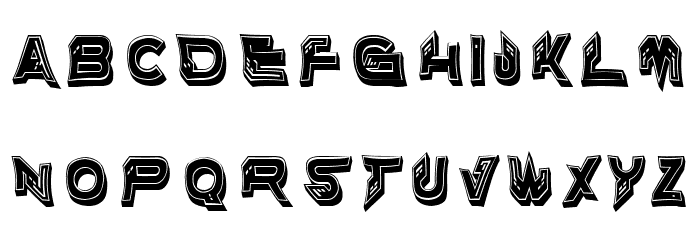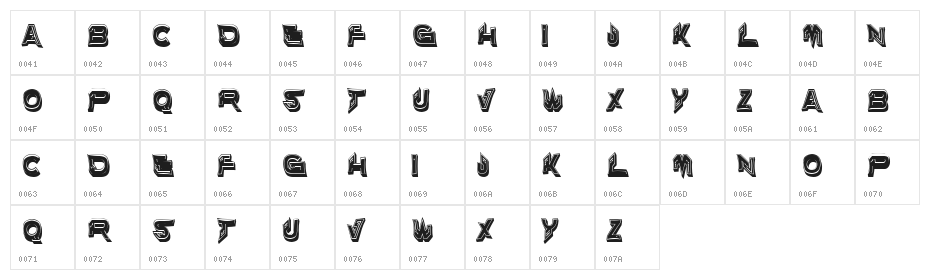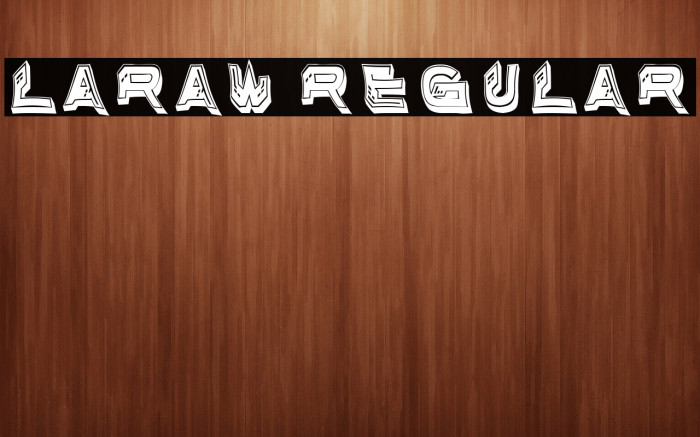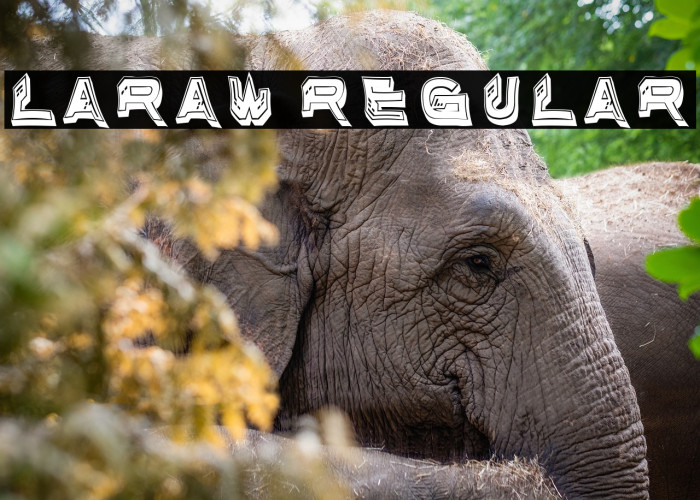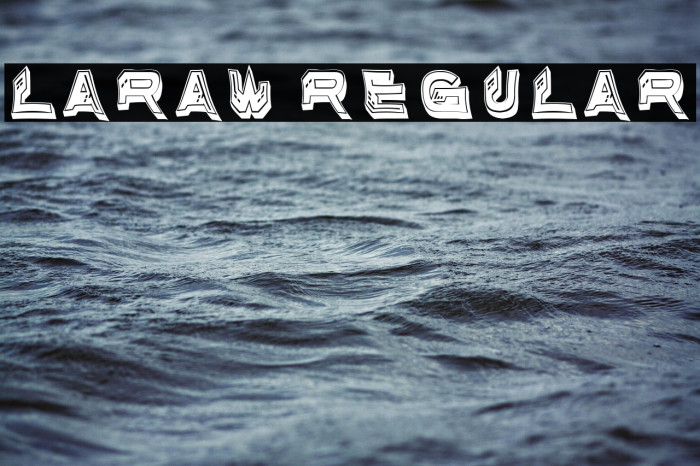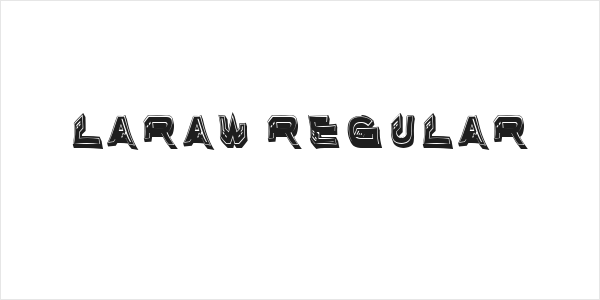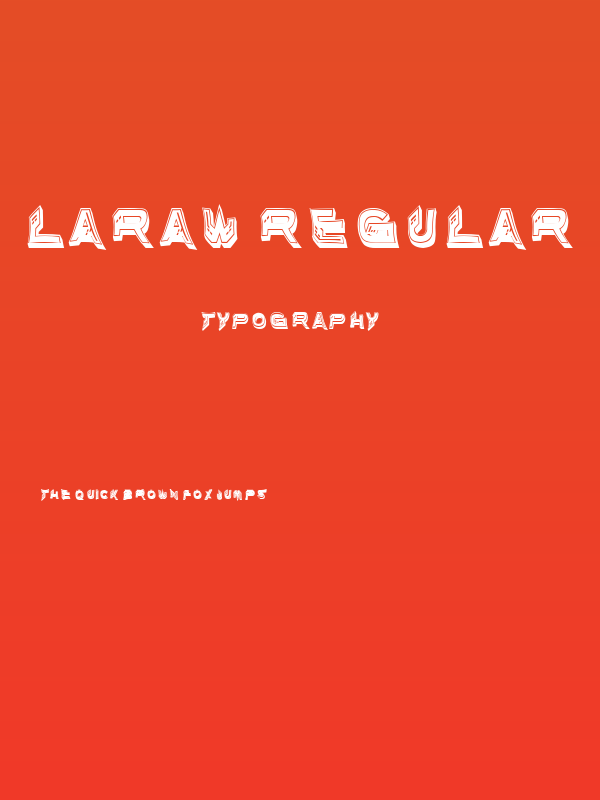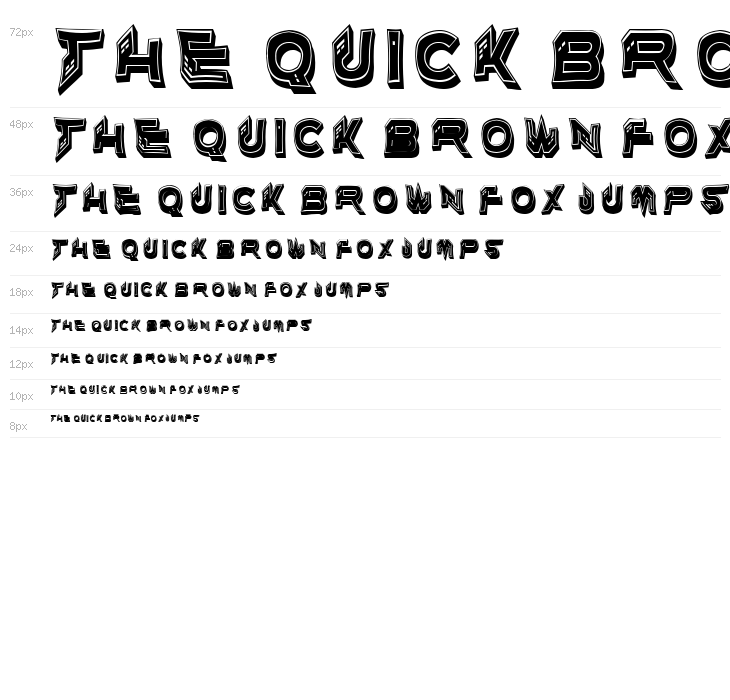
Laraw Regular Font
This font features a bold and dynamic design with a distinct geometric pattern. Each character is crafted with a series of layered lines that create a sense of depth and movement. The uppercase letters are particularly striking, with sharp angles and a futuristic aesthetic. The overall design is highly decorative, making it ideal for attention-grabbing headlines and creative projects. The font's unique style is both modern and artistic, offering a fresh take on traditional letterforms.
A bold, geometric font with layered lines and a futuristic aesthetic.
- Proposed Projects: Ideal for posters, album covers, branding, and any project requiring a modern, artistic touch.